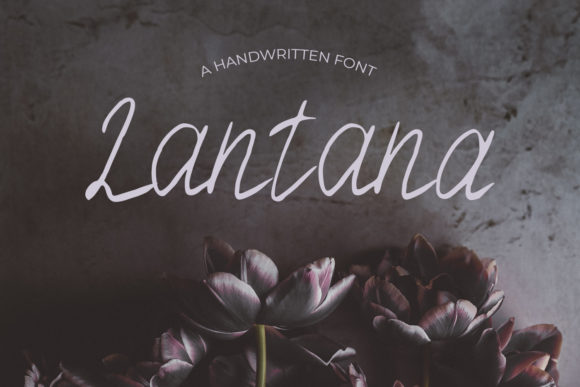
Indulge in the whimsical world of Lantana Script, the font that embodies grace and charm. Its slender strokes and fluid curves dance across your designs, leaving an imprint of sophistication and elegance. Immerse yourself in the world of modern aesthetics with this alluring font, crafted to bestow a touch of refinement upon every creation.
Unleash your creativity with Lantana Script, a font that transcends the boundaries of versatility. Its delicate nature lends itself effortlessly to a myriad of design wonders, from the allure of wedding invitations to the captivating charm of logos. Watch as your headlines transform into works of art, your t-shirts become canvases of expression, and your posters radiate an aura of timeless appeal.
Step into a world where every letter tells a story, where every word carries a whisper of enchantment. Lantana Script is more than just a font; it's a gateway to a realm of design possibilities where dreams take shape and visions come to life. Its versatility knows no bounds, inviting you to explore the depths of your imagination and leave an indelible mark on the hearts of your audience.